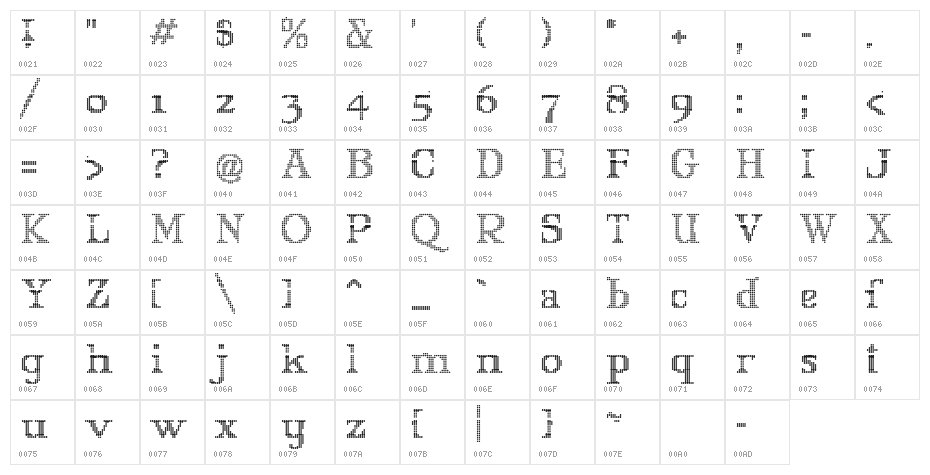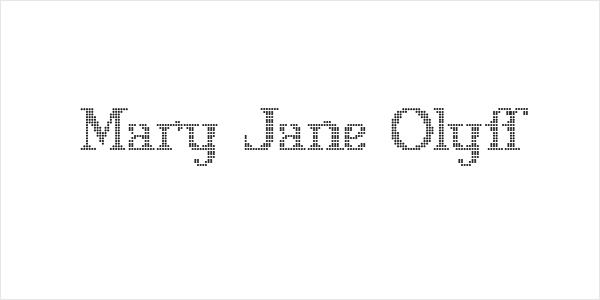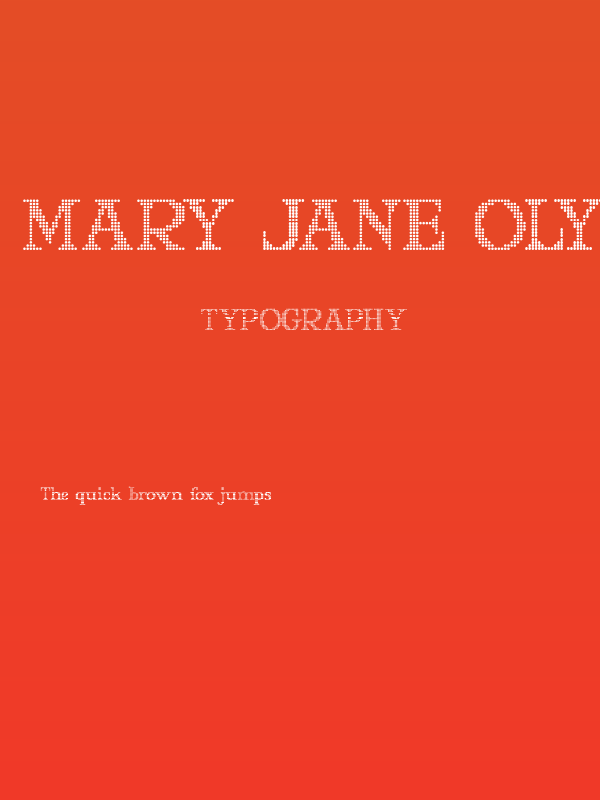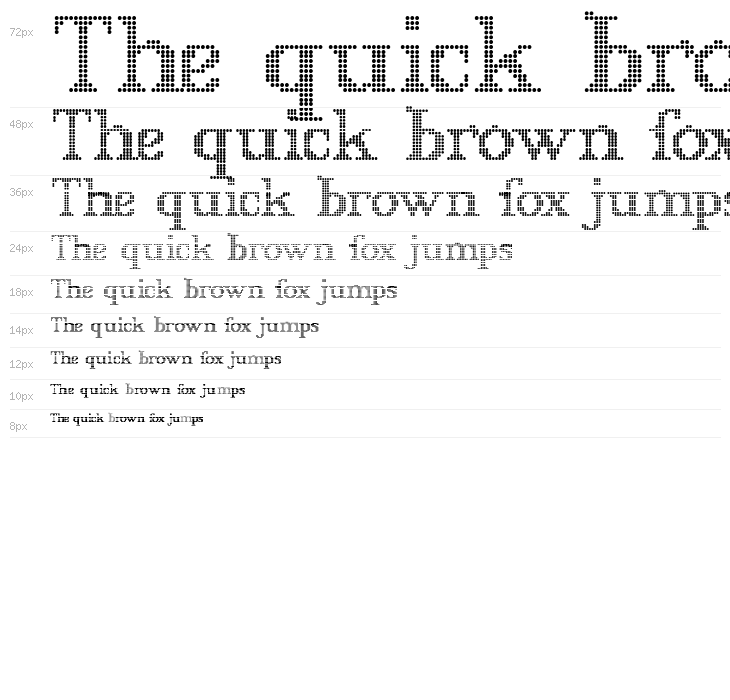
Mary Jane Olyff Font
Mary Jane Olyff Description
This font features a unique dotted pattern that forms each character, creating a visually striking and textured appearance. The uppercase and lowercase letters maintain a consistent style, with each character composed of evenly spaced dots that give it a pixelated look. The numbers and special characters follow the same design principle, ensuring uniformity across the entire character set. This font's distinct style makes it stand out, offering a modern twist on traditional typography. The dotted design provides a playful yet sophisticated aesthetic, making it suitable for creative and artistic projects.
| Use Case | Logos, Headlines, Artistic designs |
| Proposed Projects | Ideal for digital art, posters, creative branding, and modern graphic design projects. |